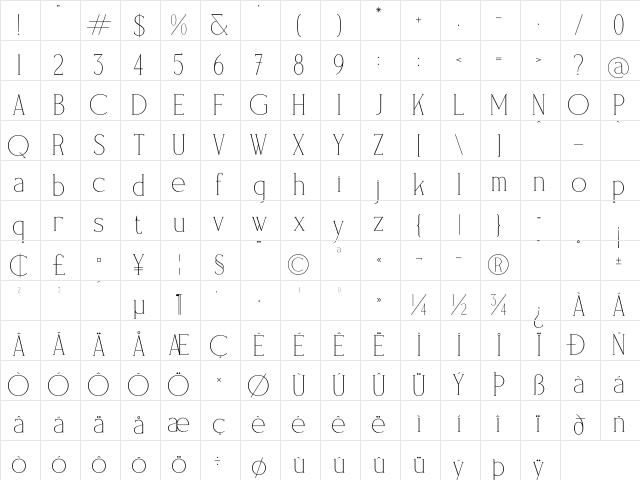
Rampwind Regular Free Font
Rampwind Regular
Foundry: Storytype Studio
Designer: Heru Utama Putra
Design Context for Rampwind
Rampwind is a composed and adaptable typeface that performs quietly and consistently across a wide range of design contexts.